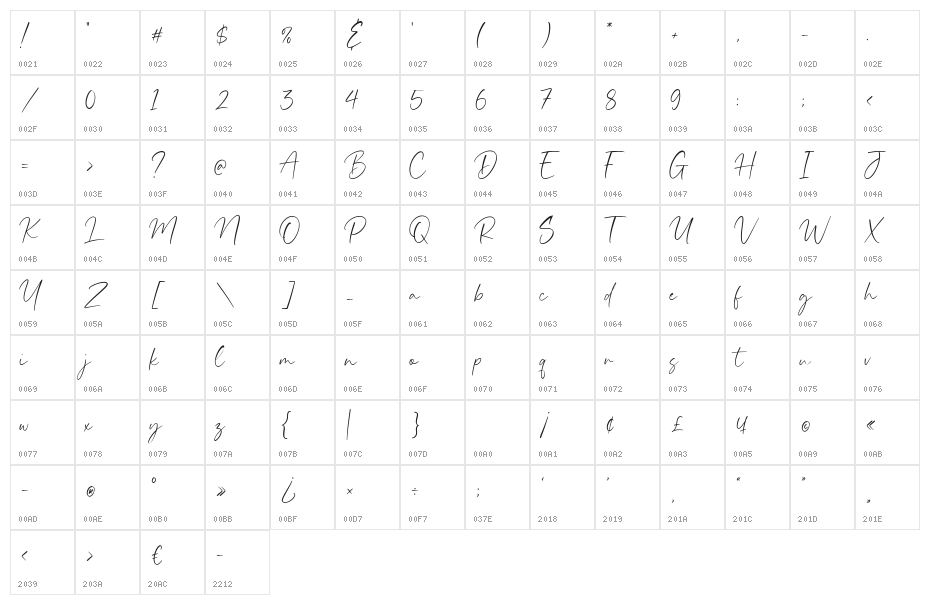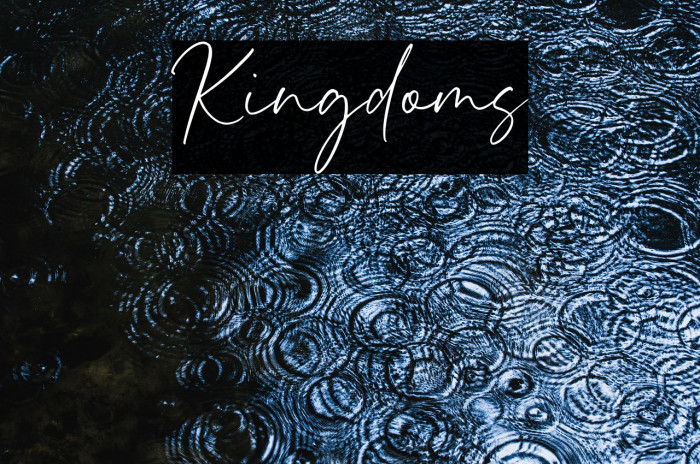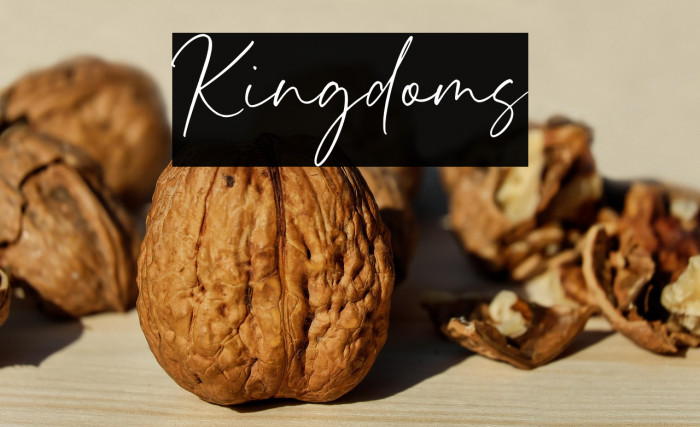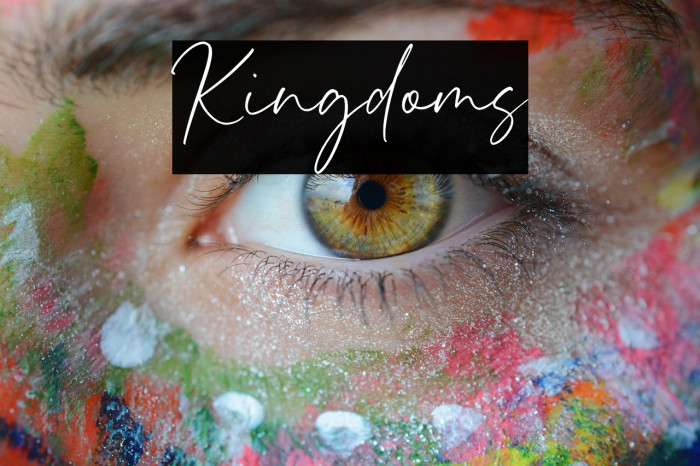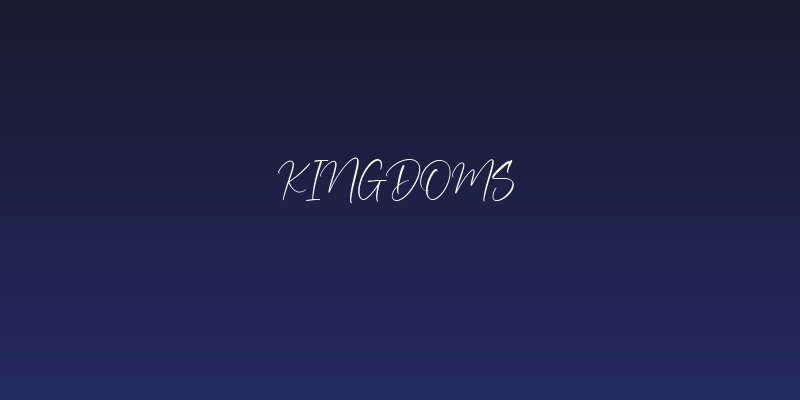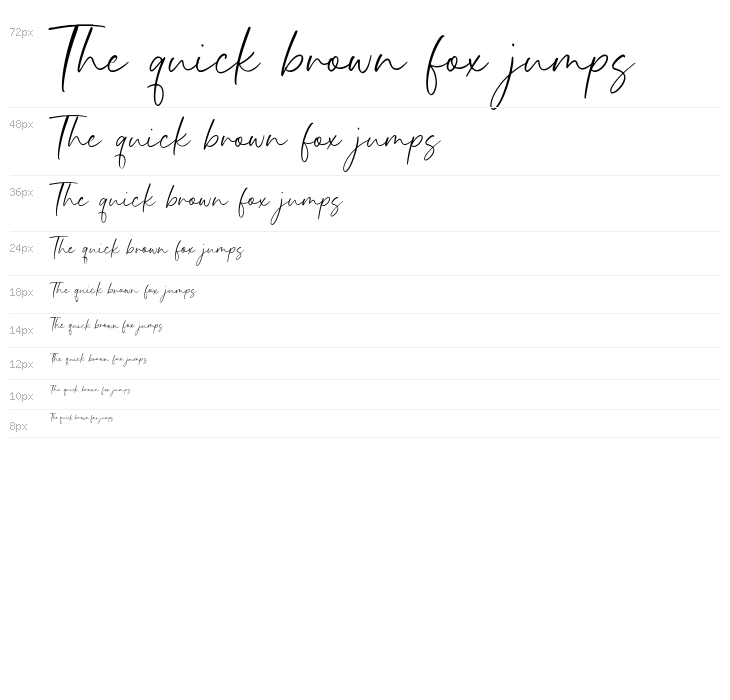
Kingdoms Font
Kingdoms Description
A flowing, elegant script font with a handwritten style, featuring smooth curves and a natural, personal touch.
| Overall Style | Elegant, Personal |
| Use Case | Logos, Invitations, Personal notes |
| Proposed Projects | Invitations, greeting cards, personal branding. |